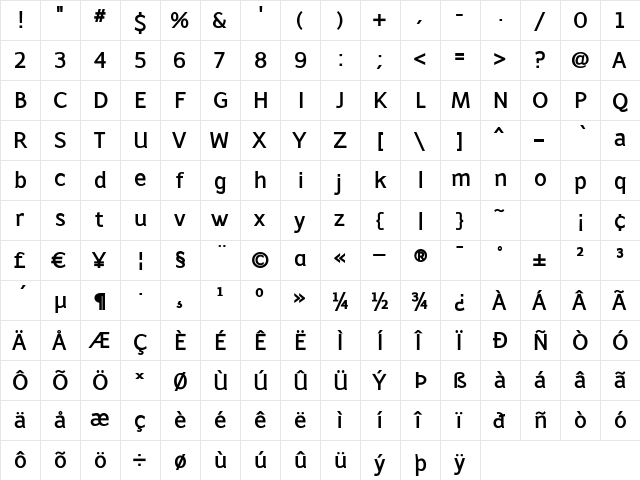
Latinaires Bold Font Preview
Latinaires Bold
Design Context for Latinaires Typeface
Latinaires is a composed and adaptable typeface that performs quietly and consistently across a wide range of design contexts. Its bold stroke weight gives it real presence on the page.